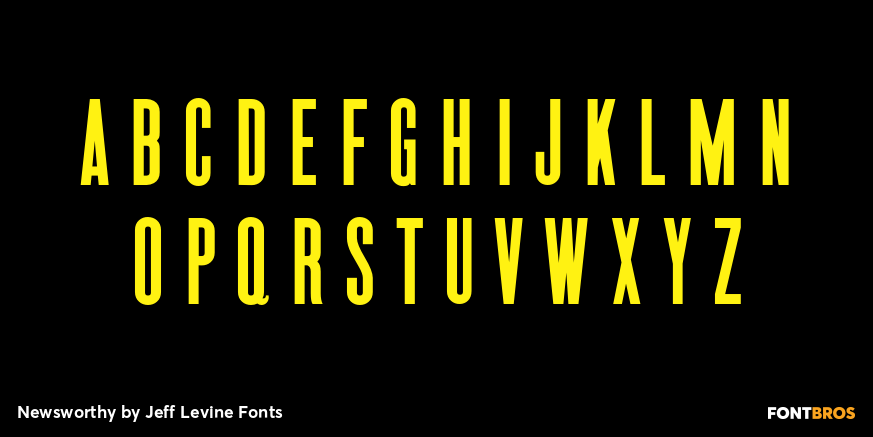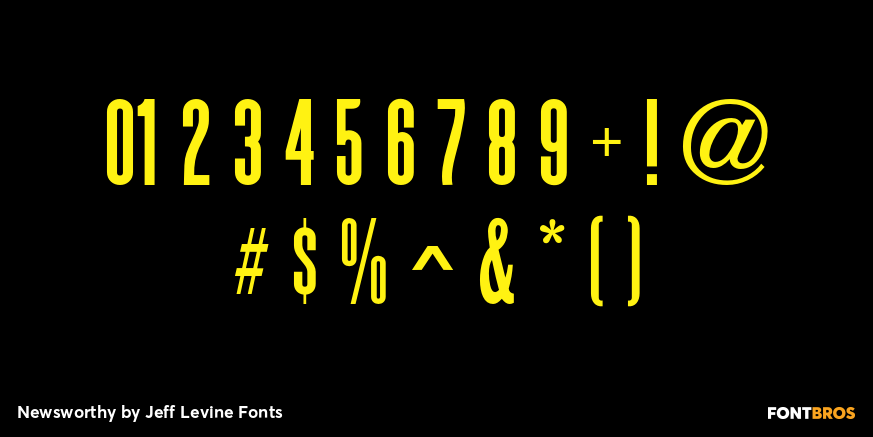
Newsworthy
Newsworthy JNL and its oblique counterpart are variations on the ever-popular condensed type styles used for newspaper and tabloid publications.